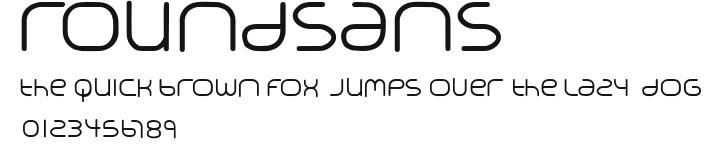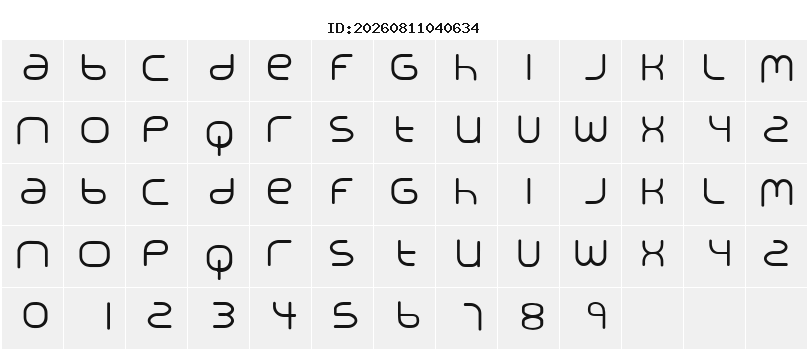
• Font Name: RoundSans
• Full Font Name: RoundSans
• Version: 1.0 2005-08-01
About RoundSans.ttf
RoundSans.ttf is a modern, elegant sans-serif font designed for ultimate readability and visual harmony. Perfect for branding, headlines, web design, and print materials.